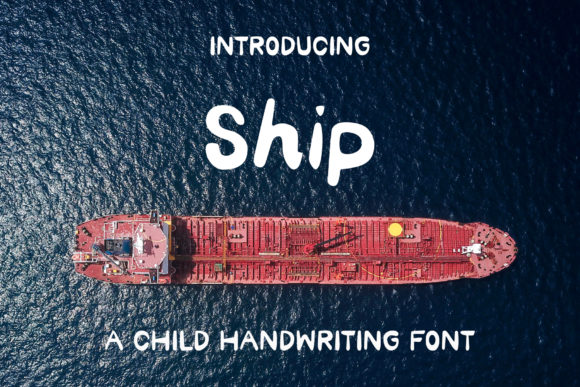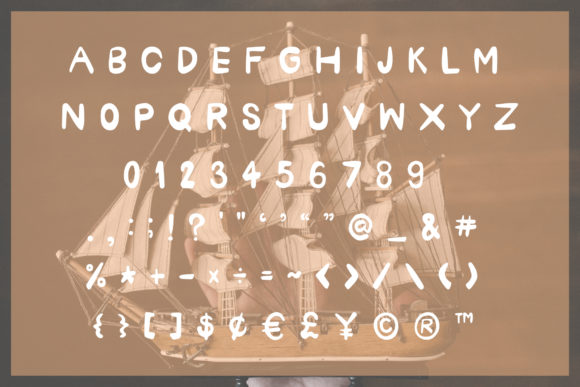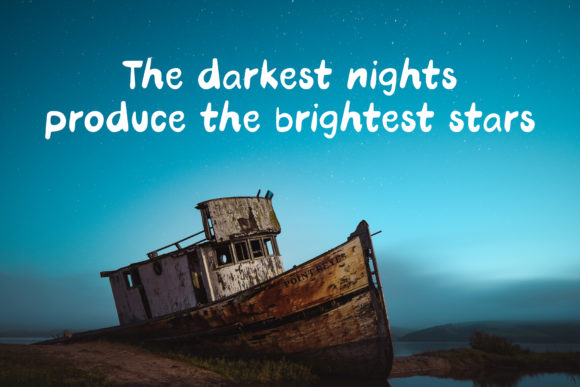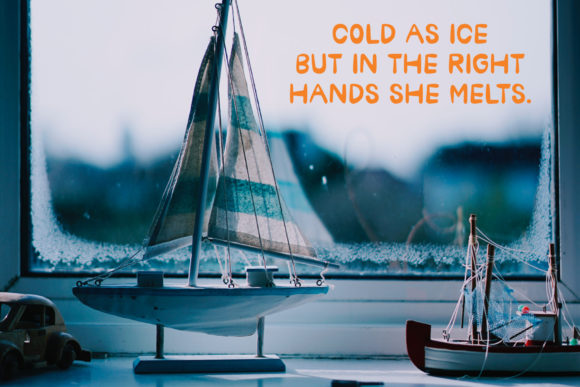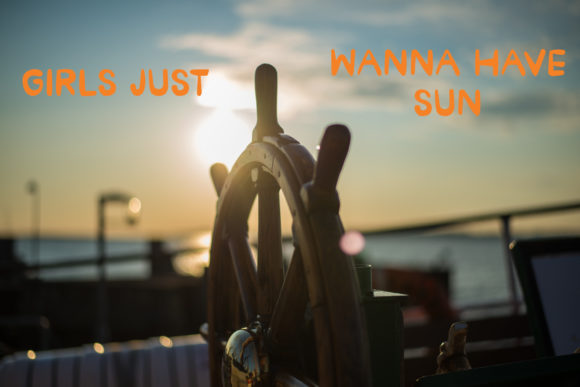
Ship Font
About Ship Font
Ship is a cute and friendly handwritten font. Get creative with its childlike playfulness, and use it to brighten up any kids and school project!